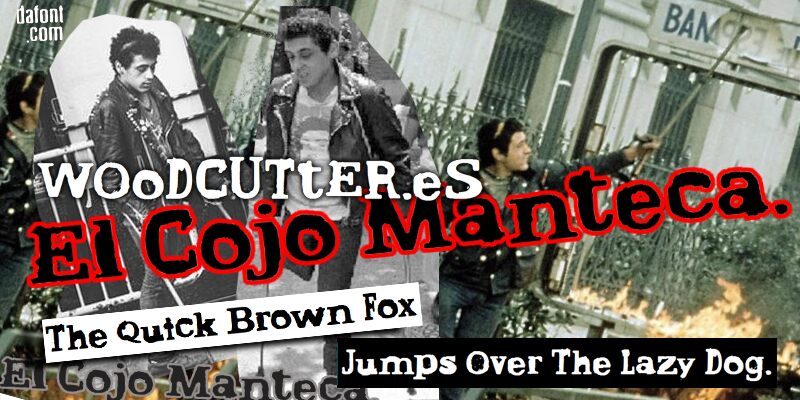
El Cojo Manteca
El Cojo Manteca font is a grunge display creation by Woodcutter. Taking advantage of its eroded and textured appearance, it evokes nostalgia with its worn aesthetic for some exciting artwork. It still finds itself used today in certain circumstances that call for the vintage feel only this free bold display font can provide.
A variety of projects can be realized with El Cojo Manteca; apparel design, packaging, signage, book covers, magazines titles and covers, storefronts signs, poster making, box design mockups and album art.